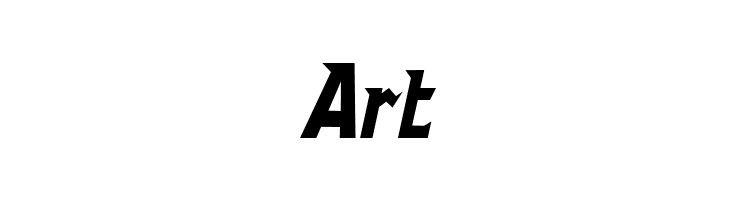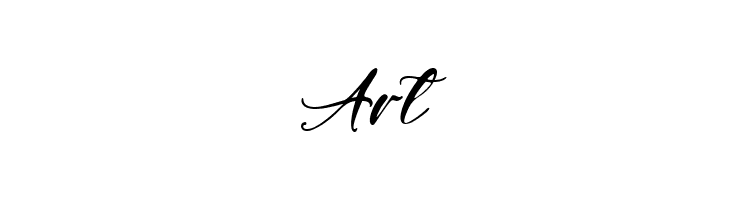
A playful, handwritten font with whimsical curls and loops.
A bold, jagged font with a distressed, horror-inspired style.
A playful, bold font with rounded, thick strokes and a whimsical style.
A bold, angular font with a geometric and modern style.
A bold, italicized font with sharp, angular edges and a dynamic style.
A bold, geometric typeface with a vintage poster feel, ideal for impactful headlines.
An elegant script font with flowing cursive letters and refined flourishes.
An elegant script font with ornate swashes and flowing cursive letters.
A classic calligraphic font with elegant, flowing lines and historical sophistication.